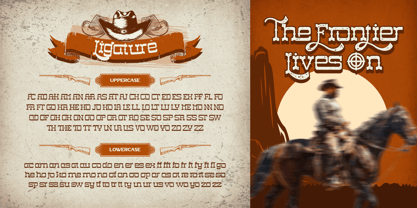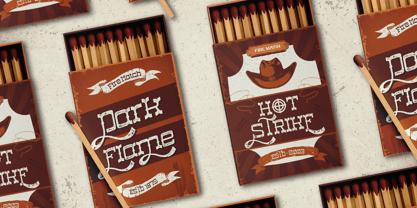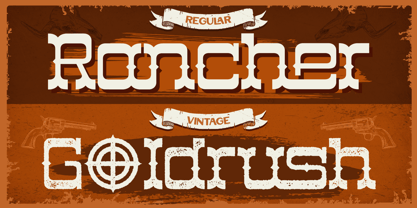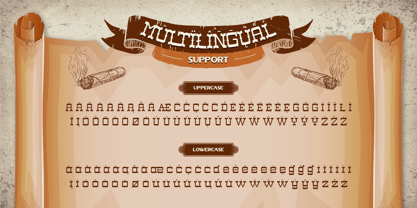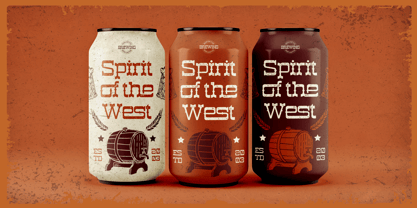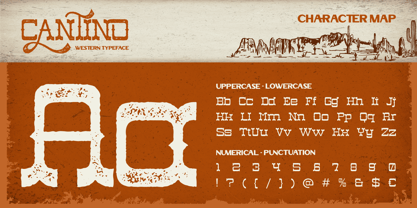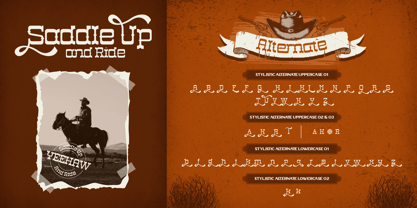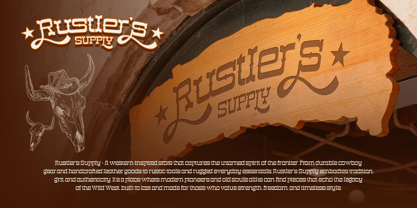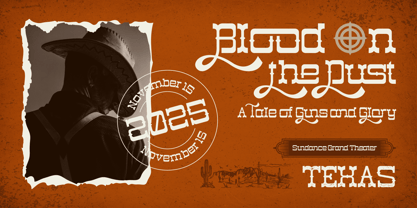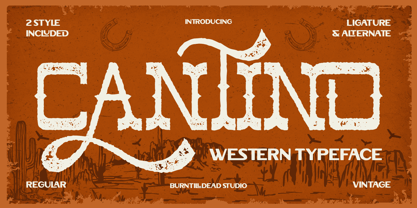
Cantino
by Burntilldead
Saddle up, partner! Meet Cantino, a bold Western-style typeface that brings back the dusty charm of the Old West. Inspired by cowboy posters, saloon signs, and the spirit of the wild frontier, Cantino is made for those who dare to stand out. This font comes with two styles – Regular and Vintage, plus a set of ligatures and alternates that add authentic Western flair to your design. Whether you're designing a movie title, ranch logo, rodeo poster, or vintage packaging, Cantino makes every word feel like a ride through the desert sunset. So grab your hat, tighten your saddle, and let Cantino bring your designs that true Western soul! Features: Uppercase & Lowercase, Numbers, Punctuations, Alternates, Ligatures and Multilingual